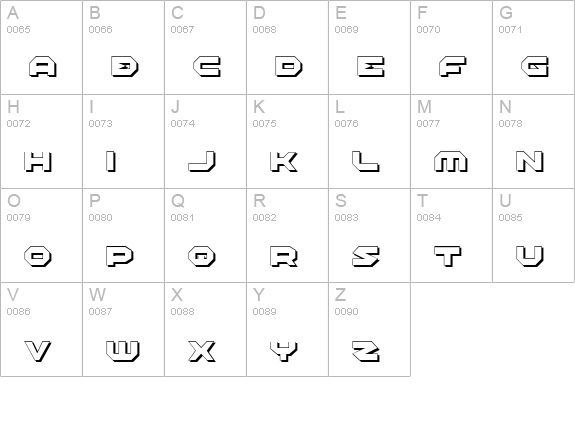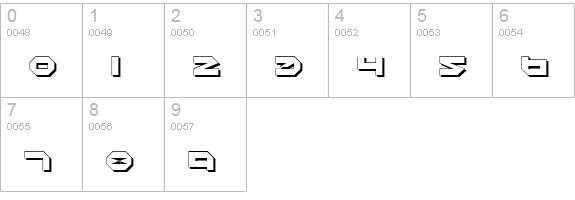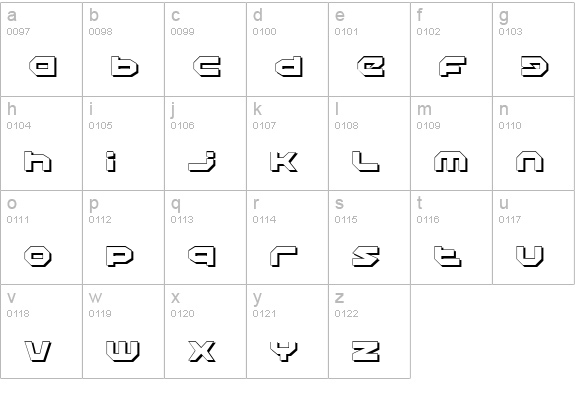
Introducing Halo Shadow, a captivating and versatile font that exudes an aura of mystery and intrigue. With its bold and striking design, this font is sure to make a lasting impression on any project it graces. Halo Shadow is the perfect blend of modernity and elegance, making it suitable for a wide range of applications. Whether you're designing a logo, crafting a poster, or creating a captivating headline, this font will effortlessly elevate your work to new heights. One of the most remarkable aspects of Halo Shadow is that it is freely available to download at FontsMarket.com. This means that you can easily access this stunning font without any cost, making it an excellent choice for designers on a budget or anyone looking to add a touch of sophistication to their projects. The sleek and sharp lines of Halo Shadow imbue each character with a sense of power and authority. Its unique shadow effect adds depth and dimension, creating a captivating visual impact. The carefully crafted curves and intricate details make each letter a work of art, capturing attention and leaving a lasting impression on the viewer. Furthermore, Halo Shadow offers a wide range of weights and styles, allowing you to experiment and find the perfect fit for your project. Whether you prefer a bold and impactful look or a more subtle and refined approach, this font has you covered. Don't miss out on the opportunity to enhance your designs with the captivating allure of Halo Shadow. Download it for free today at FontsMarket.com and unlock the endless possibilities that this remarkable font has to offer.